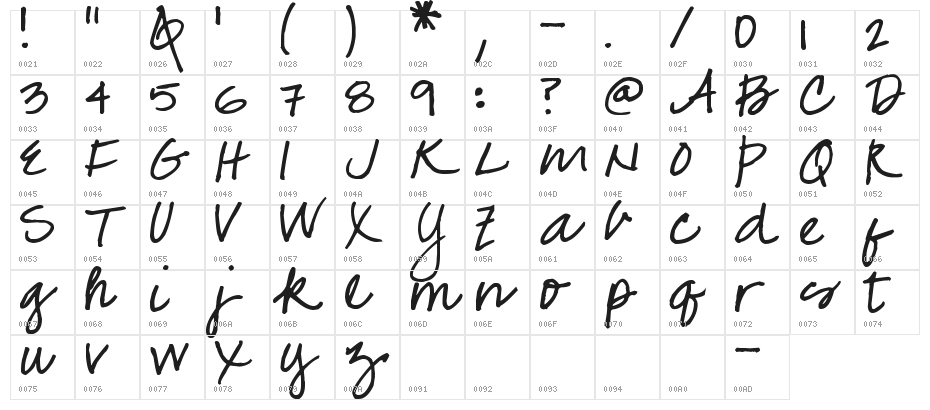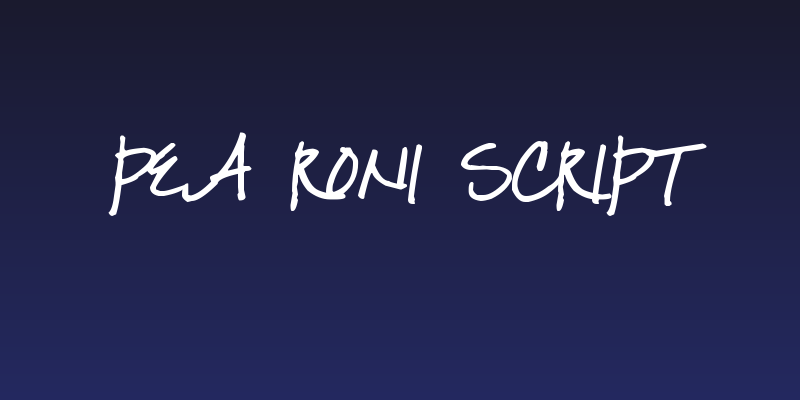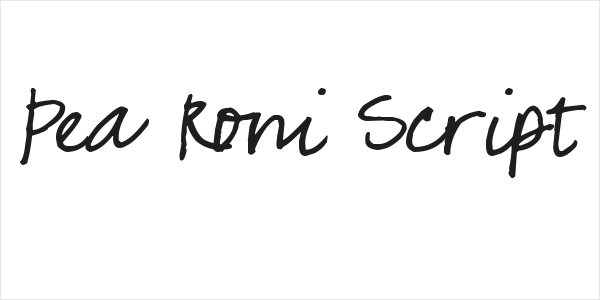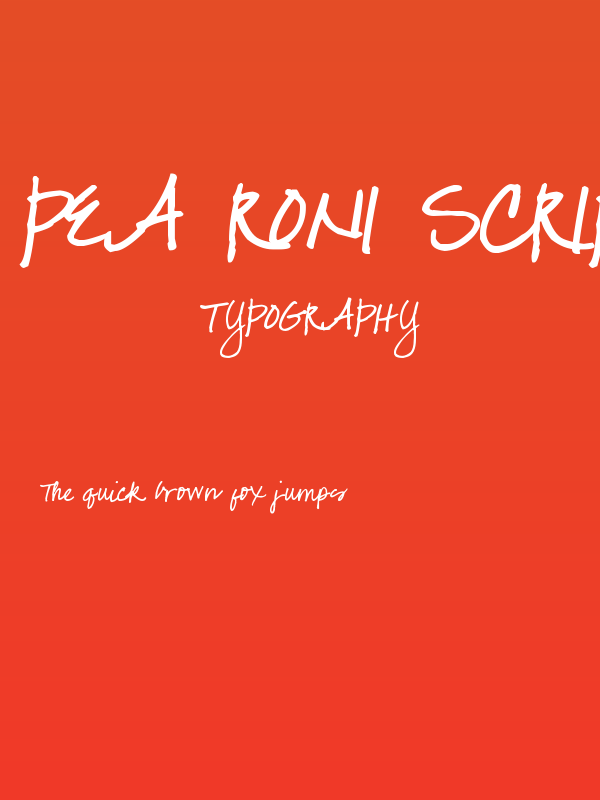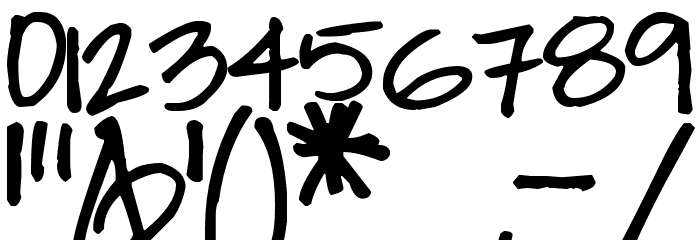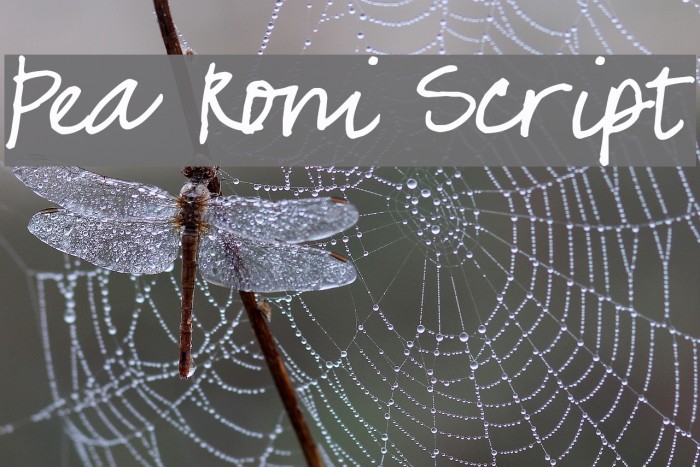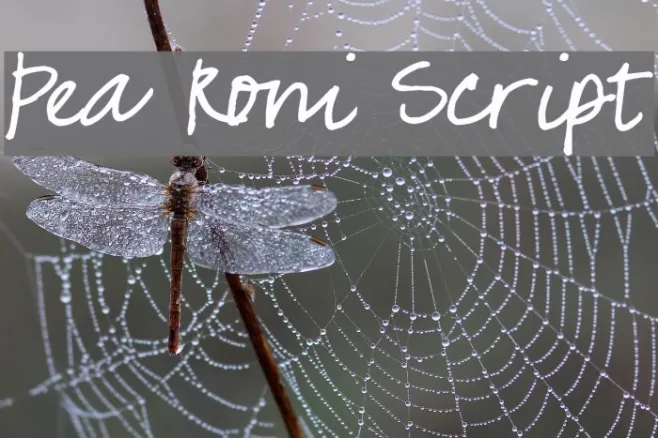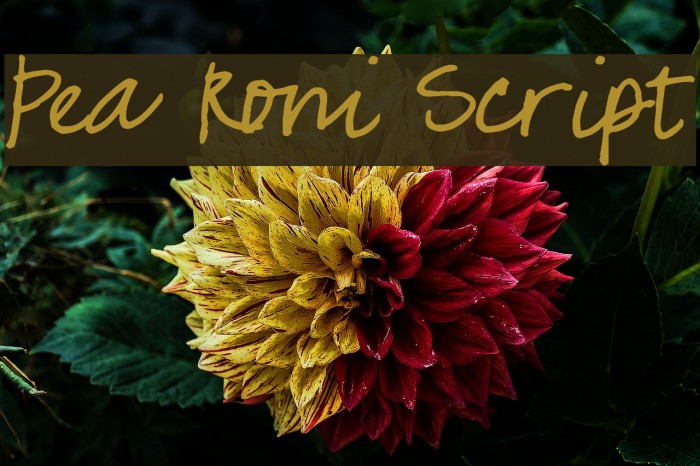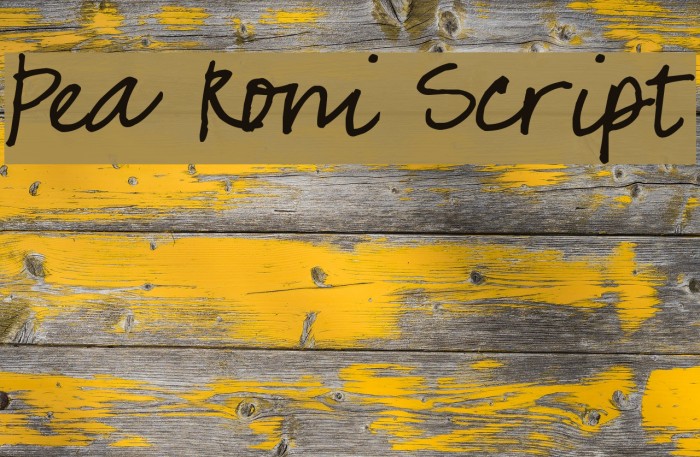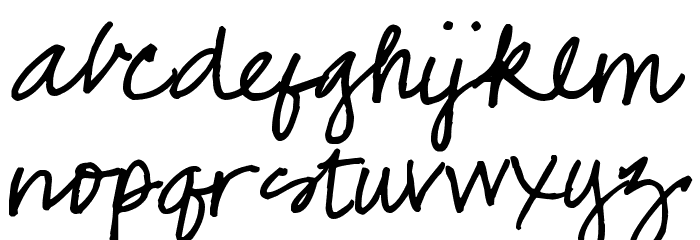
Pea Roni Script Font
Pea Roni Script Description
This font exudes a casual and friendly vibe with its handwritten script style. The letters are fluid and connected, mimicking natural handwriting with a slight slant to the right. The strokes vary in thickness, adding a dynamic and lively feel to the text. Uppercase letters are bold and prominent, while lowercase letters maintain a consistent flow. Numbers and special characters are crafted with the same playful and informal touch, making the font versatile for various creative projects. The overall appearance is approachable and personal, ideal for conveying warmth and authenticity.
| Use Case | Logos, Invitations, Social Media Graphics |
| Proposed Projects | Ideal for personal invitations, greeting cards, casual branding, and social media graphics. |